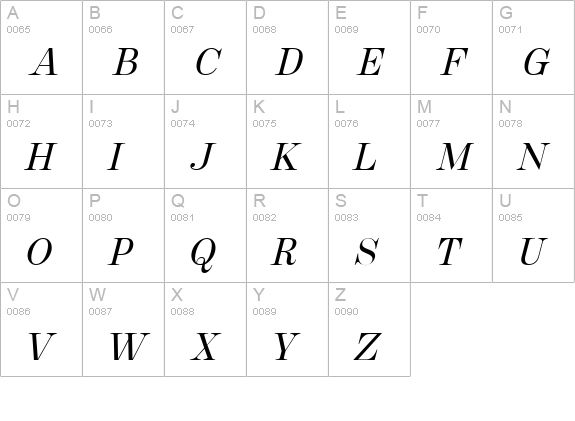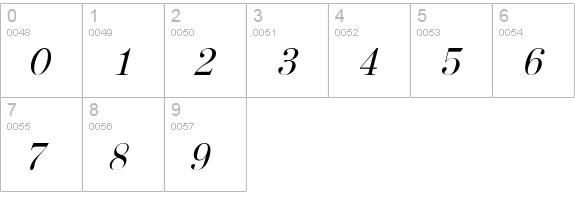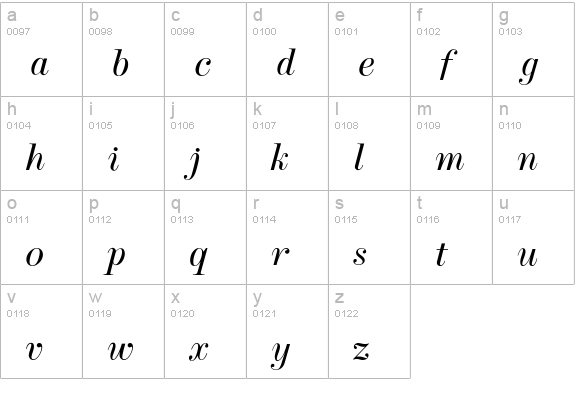
CavettoItalicJF Font Details
CavettoItalicJF font is a stunning and elegant typeface that exudes sophistication and charm. With its graceful curves and delicate serifs, this font adds a touch of class to any design project. The italicized style of CavettoItalicJF font gives it a sense of fluidity and movement, making it perfect for conveying a sense of elegance and grace. What sets CavettoItalicJF font apart is not only its timeless design, but also the fact that it is available for free download at FontsMarket.com. This means that you can easily incorporate this beautiful font into your projects without any cost, making it a valuable asset for designers and creatives looking to elevate their work with a touch of sophistication. Whether you're working on a branding project, wedding invitations, or any other creative endeavor, CavettoItalicJF font is sure to make a lasting impression. Download this exquisite font for free today and add a touch of elegance to your designs.